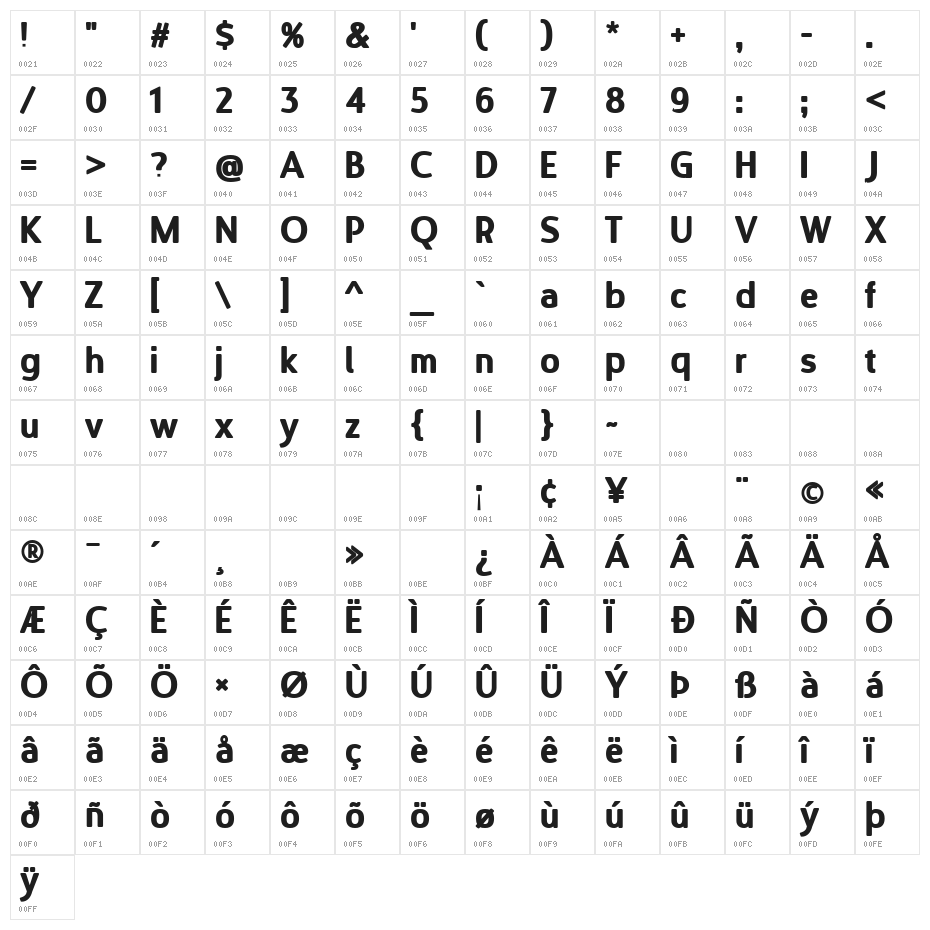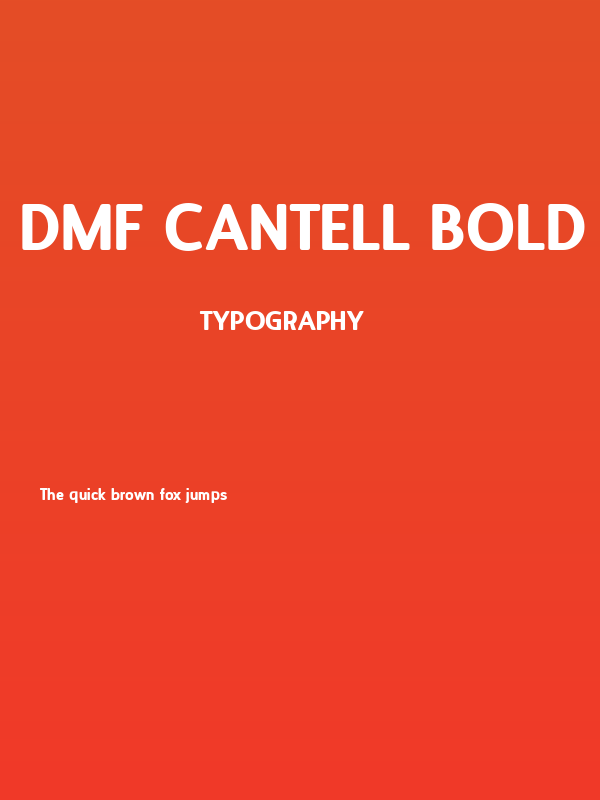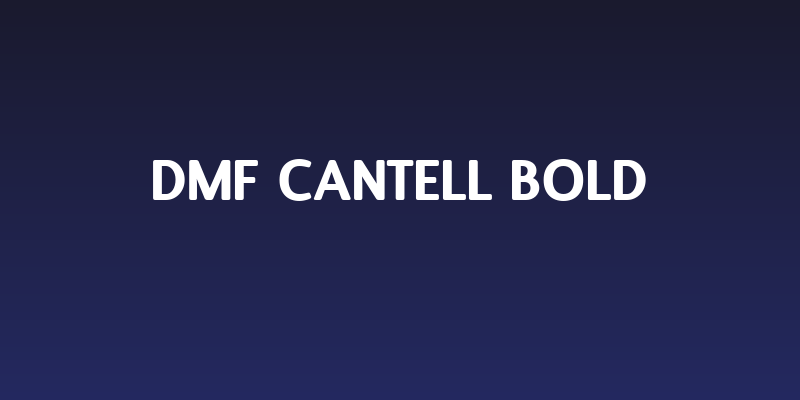
DMF Cantell Bold Font
DMF Cantell Bold Description
This font features a bold and robust design, characterized by its thick strokes and rounded edges. The uppercase letters are uniform in height, providing a strong and cohesive appearance. The lowercase letters maintain a consistent style, with smooth curves and a balanced weight distribution. The numerals are clear and easily distinguishable, making them suitable for various applications. Special characters are well-defined, adding versatility to the font's use. Overall, this typeface exudes a modern and professional feel, ideal for making impactful statements.
| Proposed Projects | Ideal for branding, advertising, headlines, and digital media where a bold statement is needed. |